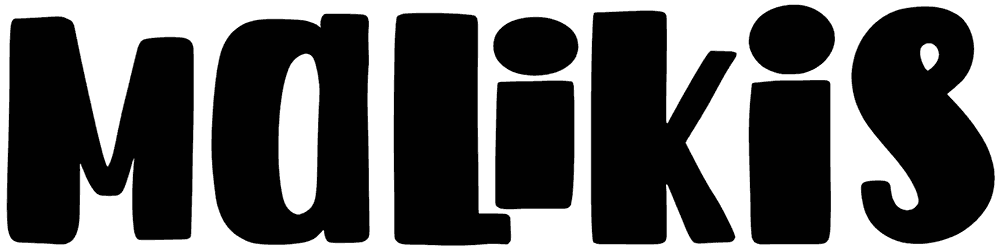
Malikis Font
Would you like your following design to have a comical and fun-loving vibe? A cartoon font like Malikis can do this for you. As a cartoon font, it has a bulky shape and will make the text stand out from the ordinary face.
Although Malikis doesn’t include numerals and most of the punctuation, this fancy font can be a cute item for lots of designs, such as flyers, covers, mugs, apparel, and more.